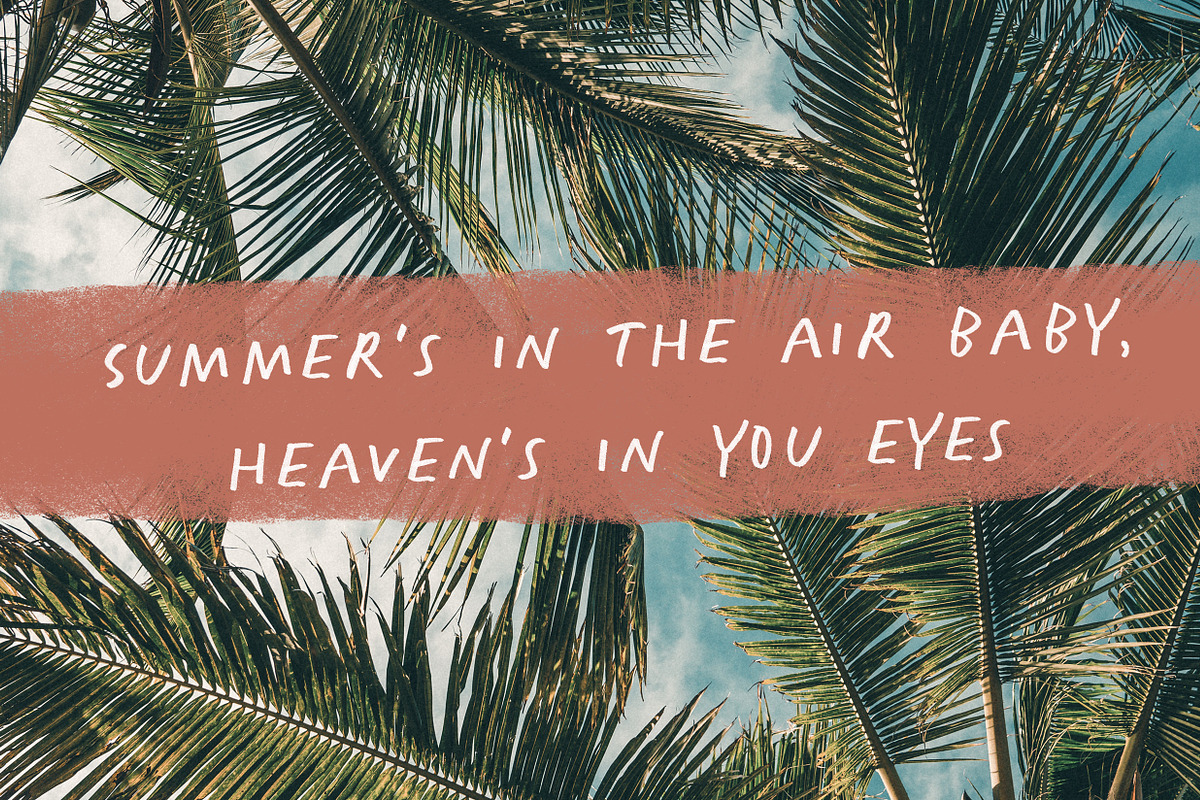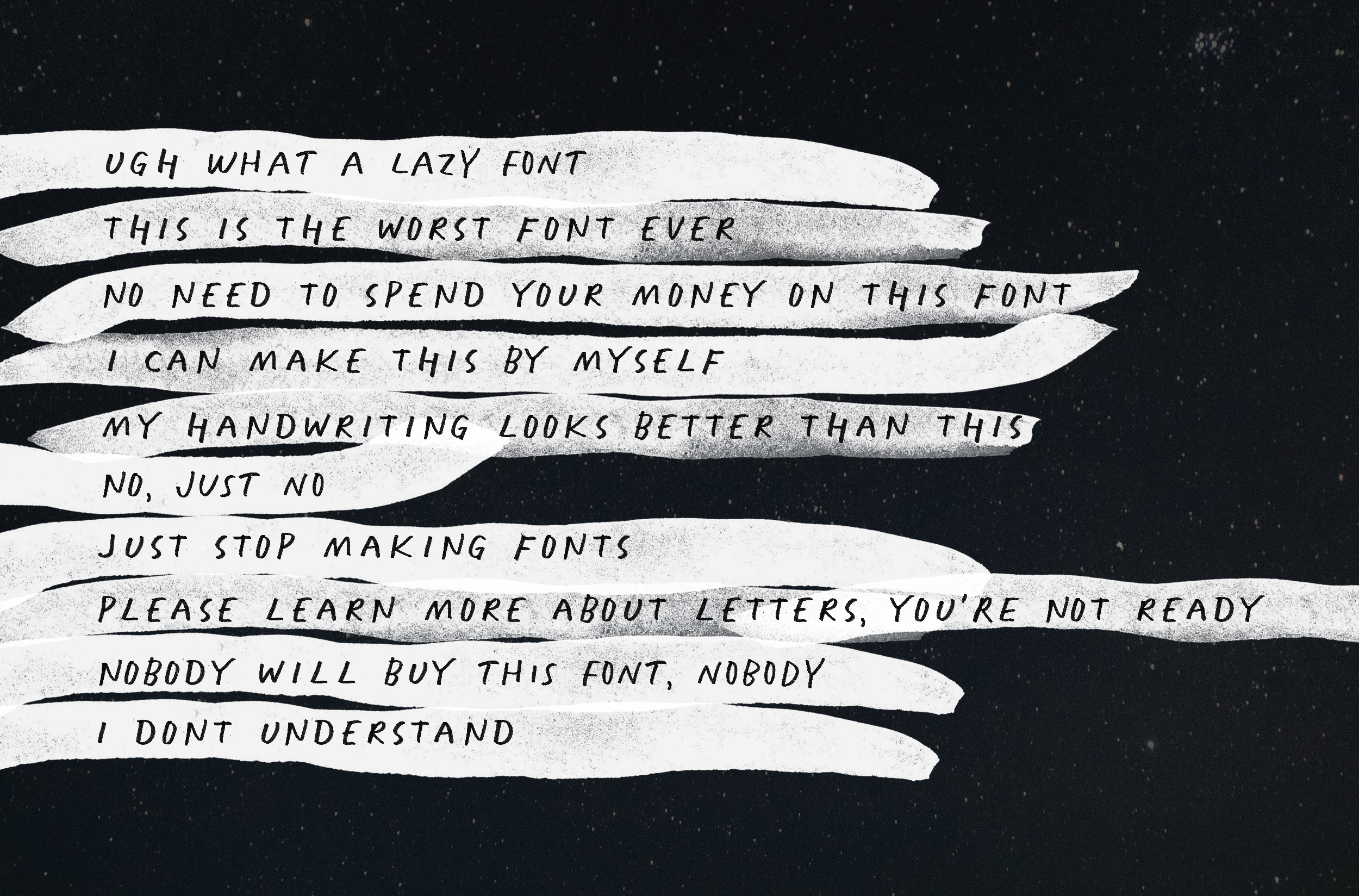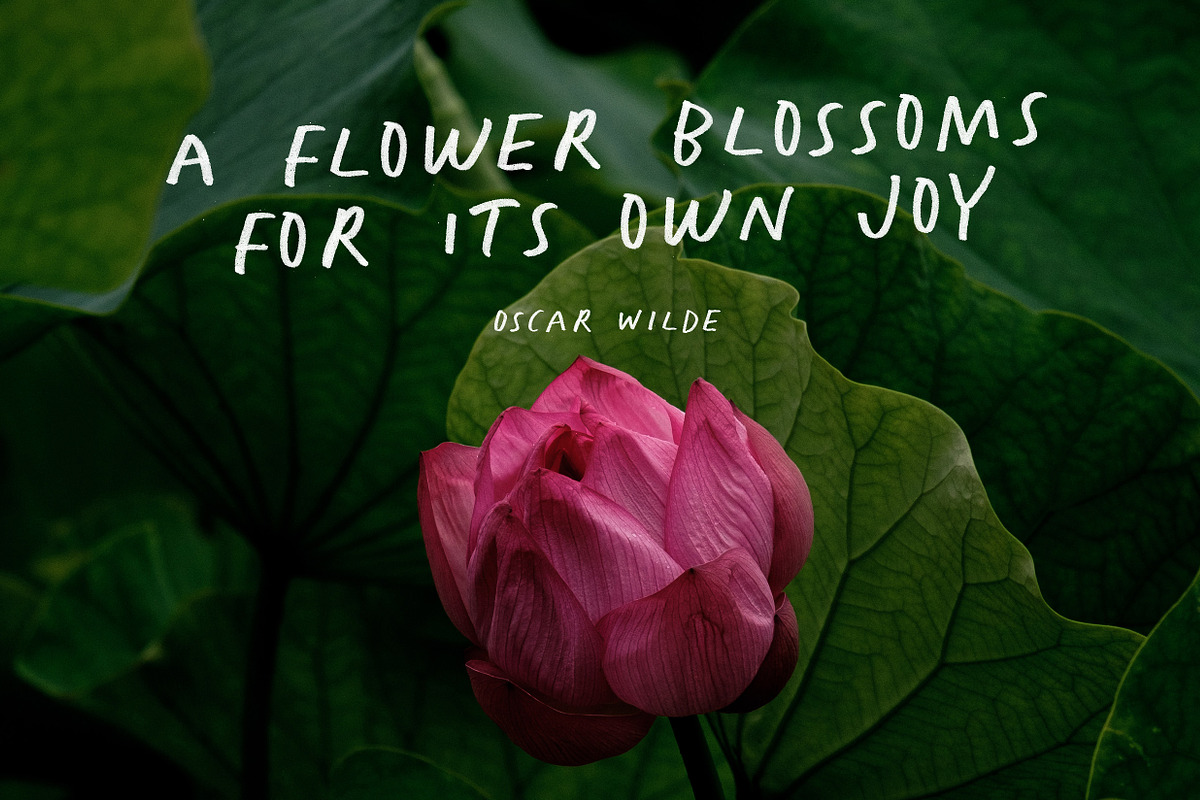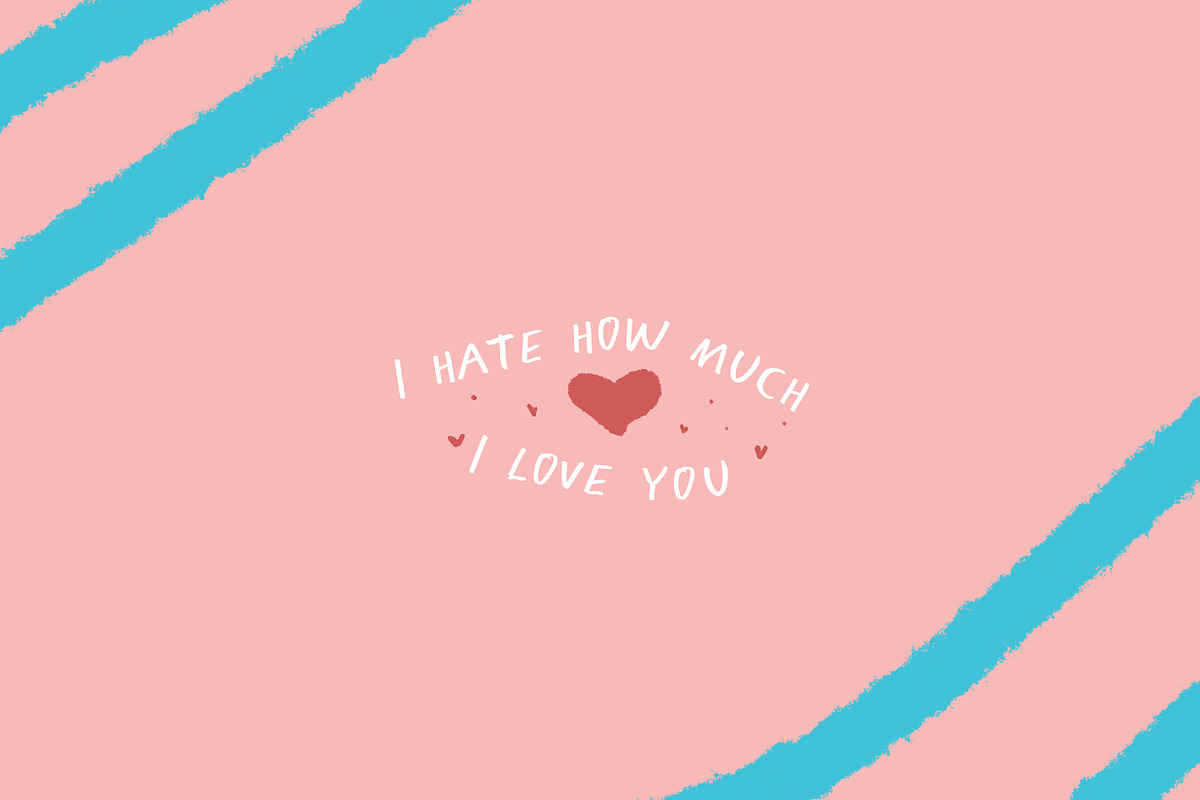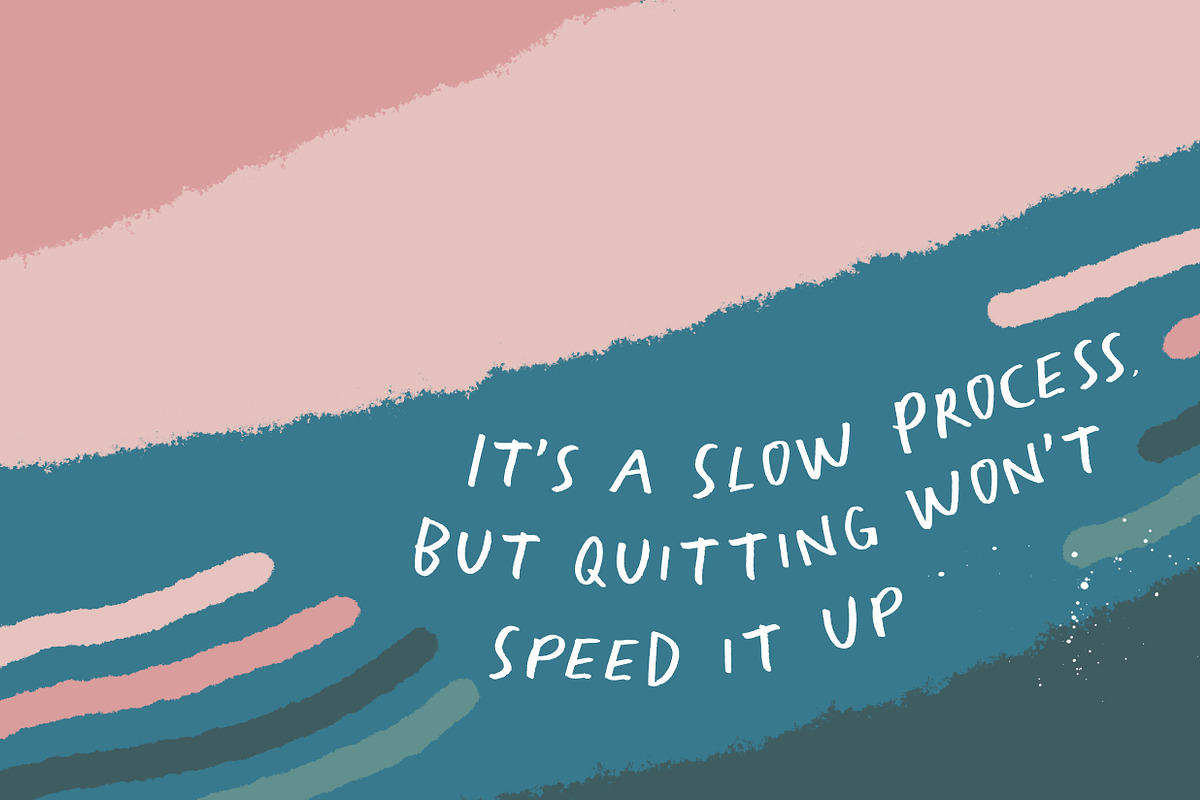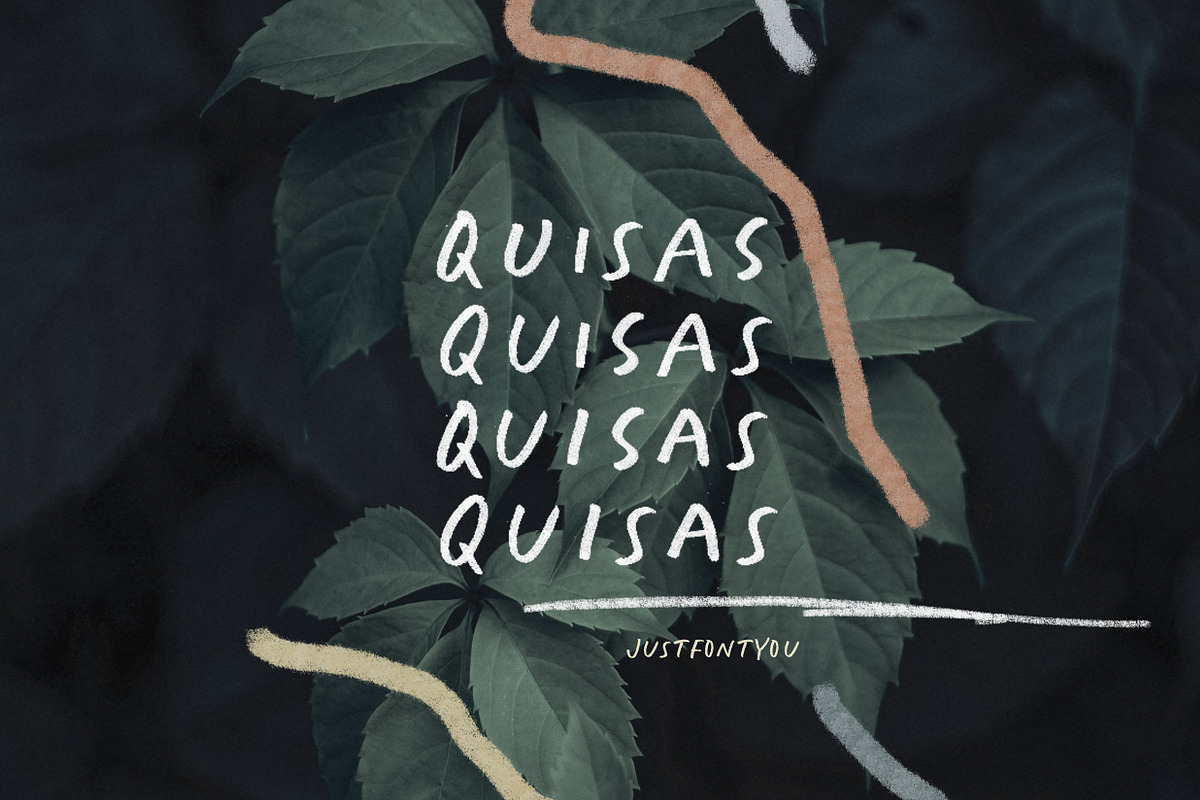
Quisas - Quirky Handwriting Fonts
Quisas, a pack of loosy handwriting fonts with all caps style, mix it up with uppercase and lowercase and you'll get a different vibes from it. Oh and it comes with SVG version too, just in case you need to look more natural in latest Adobe Photoshop style.